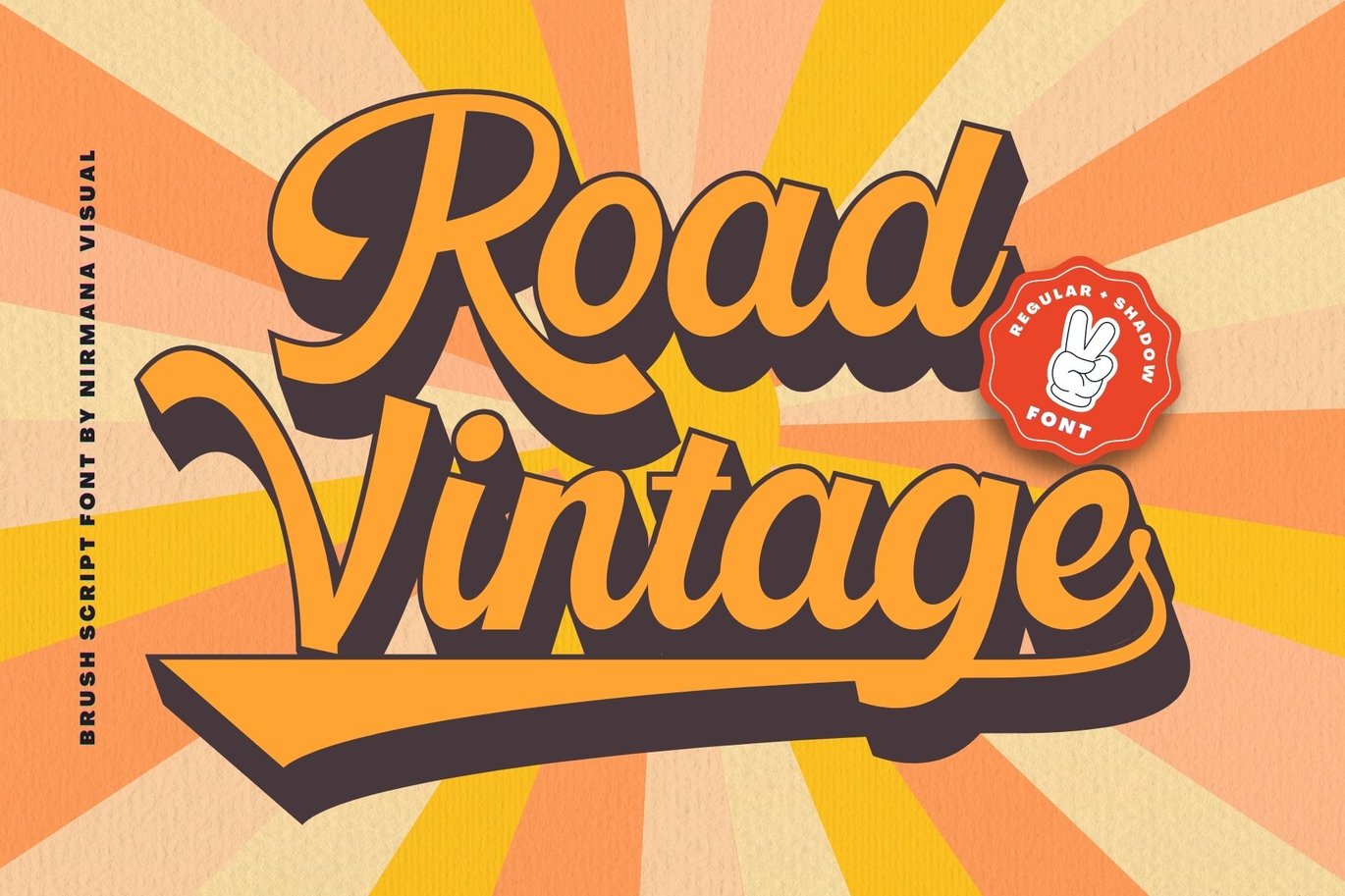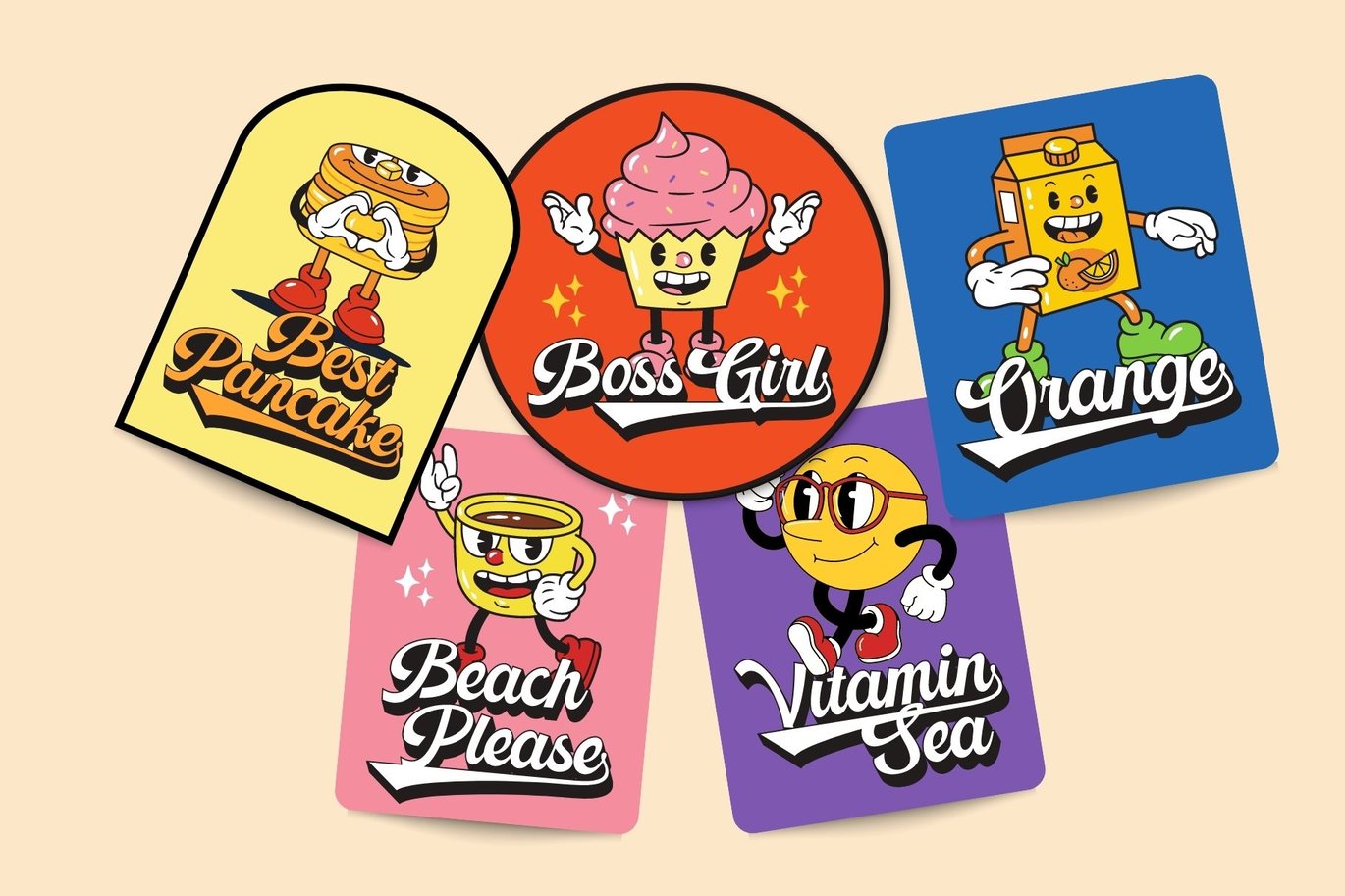
Retro Vintage – Groovy Font
Retro Vintage , Inspired by 70s Design Era
Retro Vintage offers beautiful typographic harmony for a diversity of design projects, including logos & branding, social media posts, advertisements & product designs.